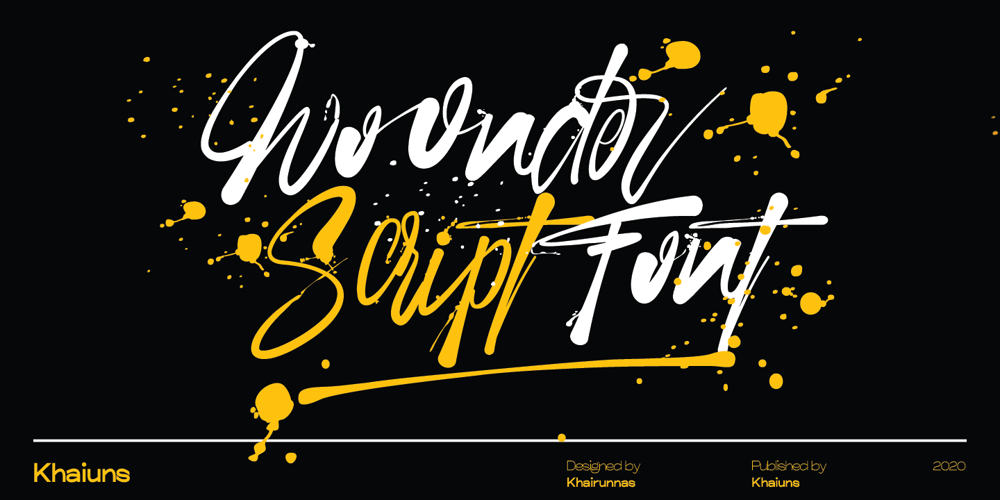
Woonder Font Family was designed by Khair Unnas and published by Khaiuns. Woonder contains 1 styles and family package options. Woonder Script Fonts, a handcrafted brush font! This bold, free-flowing, confident brush font is designed to be easily customized to your liking with 2 letter sets, also featuring swashes and some unique textures. Find a unique Woonder Script Font by adding a plus (+) to each letter and number and you’ll have a cool letter.Woonder Script Fonts is a brush font which you can use and enjoy again and again, for anything from promotional material and handwritten quotes, to product packaging, merchandise and branding projects.Please message me if you want your language included or If there are any features or glyph requests, feel free to send me a message, I would like to update it.I hope you have a blast using Woonder Script Fonts!